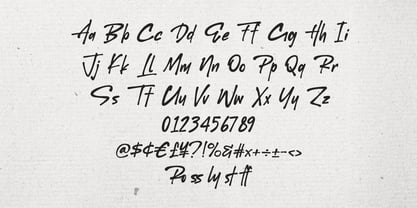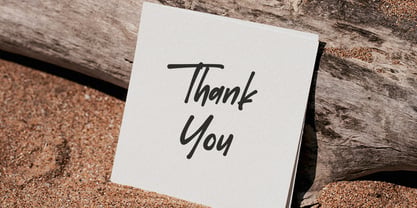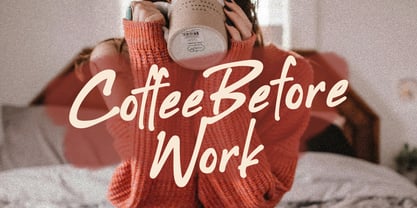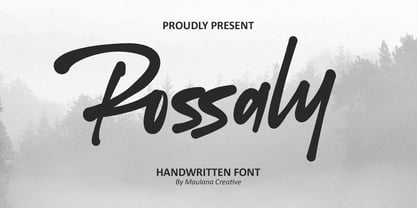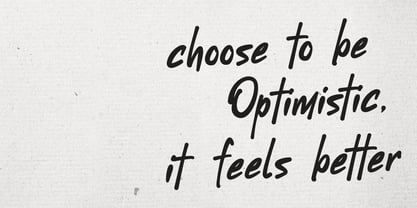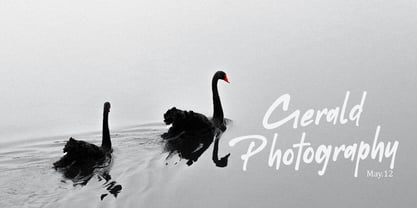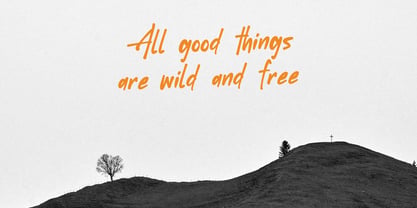
MC Rossaly
by Maulana Creative
The MC Rossaly Font Family was designed by Gilang Maulana and published by Maulana Creative. MC Rossaly contains 1 styles. More about this family
Rossaly is a stunning handwritten script font that embodies the essence of natural handwriting with its smooth, flowing rhythm. This font strikes a perfect balance between charm and professionalism, making it ideal for a variety of applications such as branding, photography logos, social media posts, invitations, quotes, and product packaging. Each letter in Rossaly feels authentic, adding a warm, human touch to your designs. The font features a comprehensive set of uppercase and lowercase letters, numbers, punctuation, and multilingual support, ensuring versatility for all your creative projects.
Designers: Gilang Maulana
Foundry: Maulana Creative